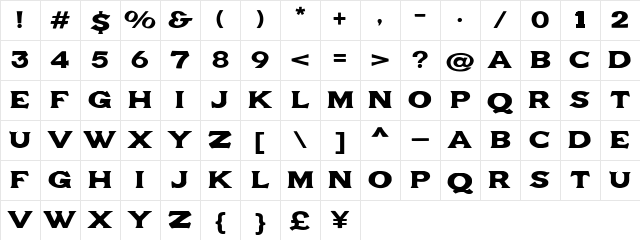
Gesone Font Regular
Foundry: Lettermine Studio
Designer: Lettermine Studio
Design Context for Gesone Font
Gesone Font is a composed and adaptable typeface that performs quietly and consistently across a wide range of design contexts.